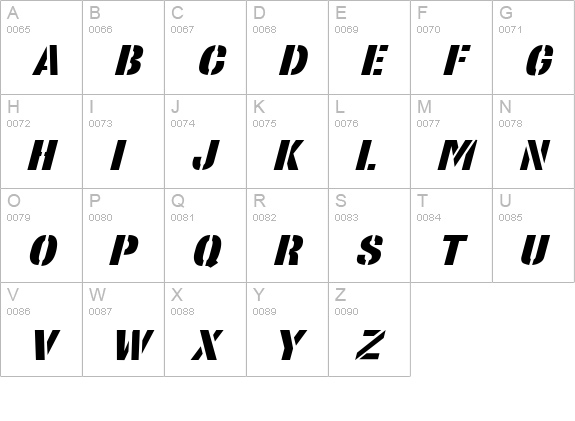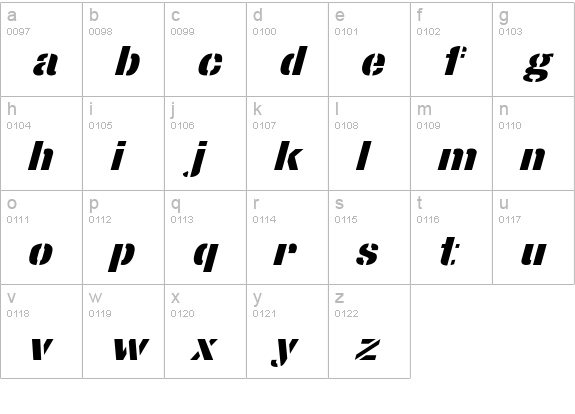
StencilSans Extrabold Italic is an extra-heavy, attention-grabbing, italic variant in the StencilSans typeface family \xE2\x80\x94 well suited to high-impact headlines, posters, and bold branding.
StencilSans Extrabold Italic font is a bold and dynamic typeface that exudes strength and modernity. Its sharp edges and slanted design give it a unique and impactful appearance, making it perfect for headlines, titles, and other attention-grabbing text. This font is free to download at FontsMarket.com, where users can easily access and utilize it for various design projects. With its bold weight and italic styling, StencilSans Extrabold Italic font adds a touch of sophistication and flair to any design, making it a versatile choice for both print and digital applications. Whether you're creating posters, logos, banners, or any other design project that demands a bold and eye-catching font, StencilSans Extrabold Italic is sure to make a statement. Download it for free today and elevate your design projects with this striking and versatile typeface.